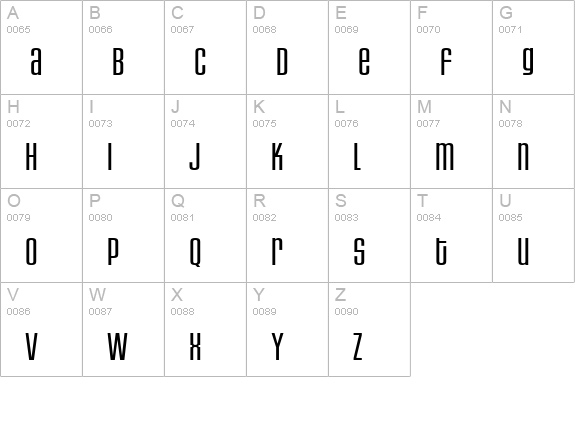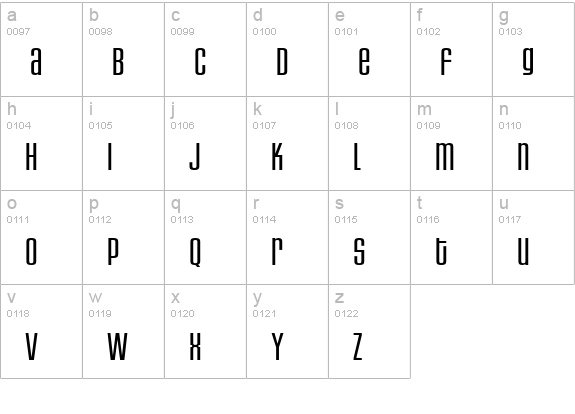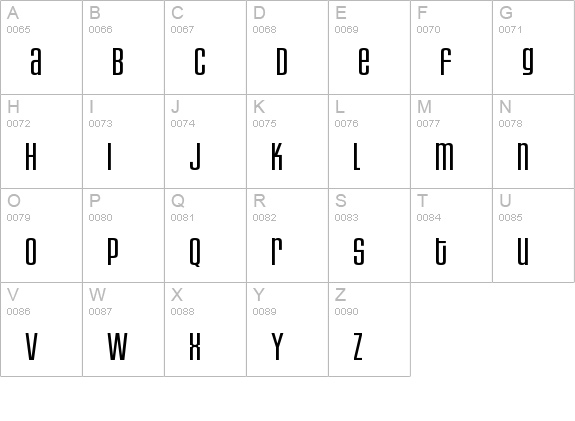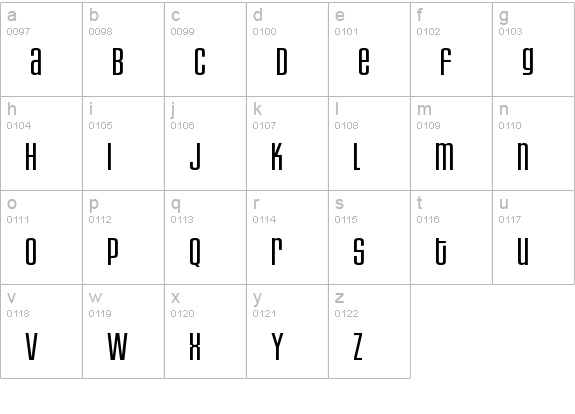
HouseGothic LightAltCaps font is a sleek and modern typeface that exudes sophistication and style. With its clean lines and sharp angles, this font is perfect for adding a contemporary touch to any design project. The alternate capital letters provide a unique twist to the traditional Gothic style, giving it a fresh and edgy look. This font is not only visually appealing but also highly versatile, making it suitable for a wide range of applications such as branding, editorial design, posters, and more. The light weight of the font gives it a delicate and elegant appearance, while still maintaining a strong presence on the page. Best of all, HouseGothic LightAltCaps font is available for free download at FontsMarket.com. This means you can easily access this stylish font and incorporate it into your projects without any cost. Don't miss out on this fantastic opportunity to enhance your designs with the HouseGothic LightAltCaps font today!